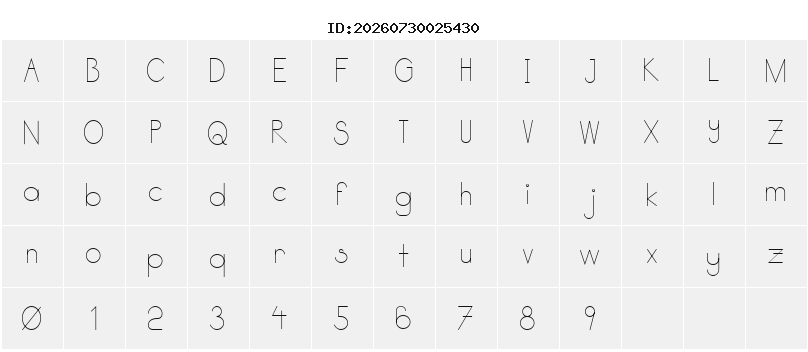
• Font Name: Kata Bidalan
• Designer: cenz qobbal
About Kata Bidalan.ttf
Kata Bidalan.ttf is a modern, elegant sans-serif font designed for ultimate readability and visual harmony. Perfect for branding, headlines, web design, and print materials.